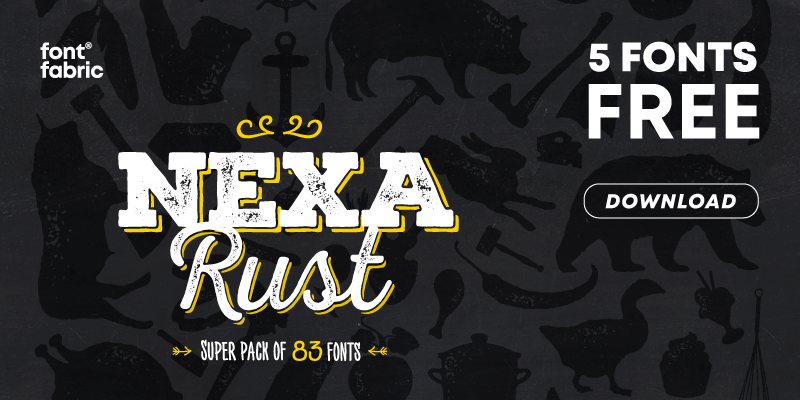
Preview and download Nexa Rust Sans Font. Created by Fontfabric in Basic Sans serif styles with Free for personal use license.
Font name: | Nexa Rust Sans |
Author: | Fontfabric |
Nexa Rust from Fontfabric Type Foundry is a multifaceted rust font type system consisting of font sub-families Sans, Slab, Script, Handmade, and Extras. |